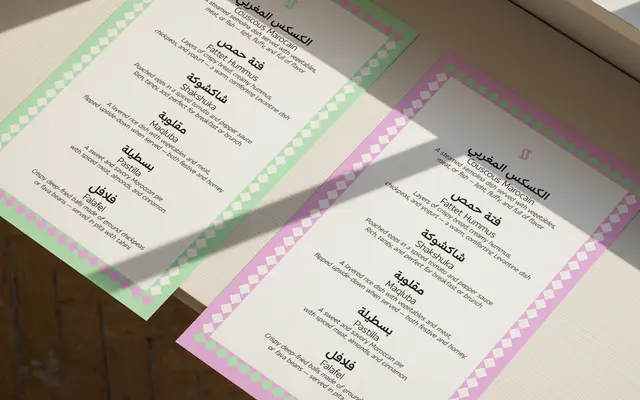
Mayson Arabic
A humanist sans by Francesco Canovaro that takes Arabic calligraphic conventions as a starting point for shaping its Latin letterforms.
Canovaro used the texture and nib-rotation logic of Arabic script to inform the Latin side of this family, resulting in fluid, open shapes that retain a calligraphic warmth without serif detail. The design is monolinear with low contrast, available in seven weights from Thin to Extrabold plus a variable font, covering 1,102 glyphs across 212 languages in both Arabic and Latin. It sits comfortably in editorial, branding and digital work where a contemporary bilingual voice is required.
A monolinear humanist sans with low contrast, drawing on Arabic calligraphic conventions such as sharp nib rotation angles and fluid curves to inform the Latin letterforms.